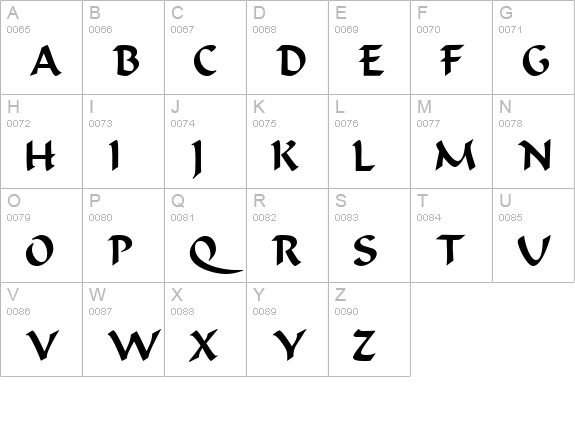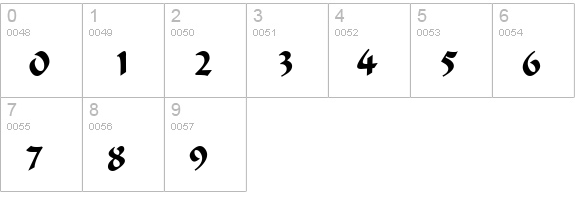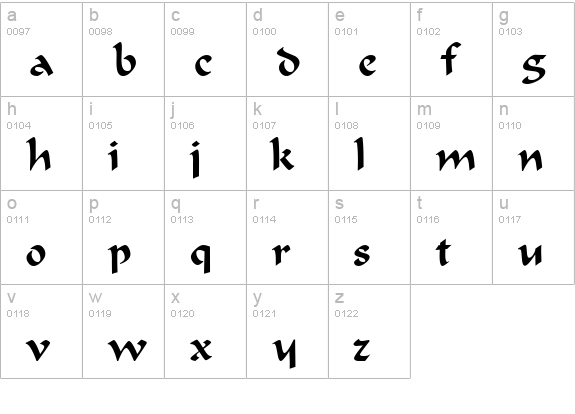
RococoSSK Regular Font Details
RococoSSK Regular is the standard, neutral variant in the RococoSSK typeface family \xE2\x80\x94 well suited to general body text, paragraphs, and standard typographic work.